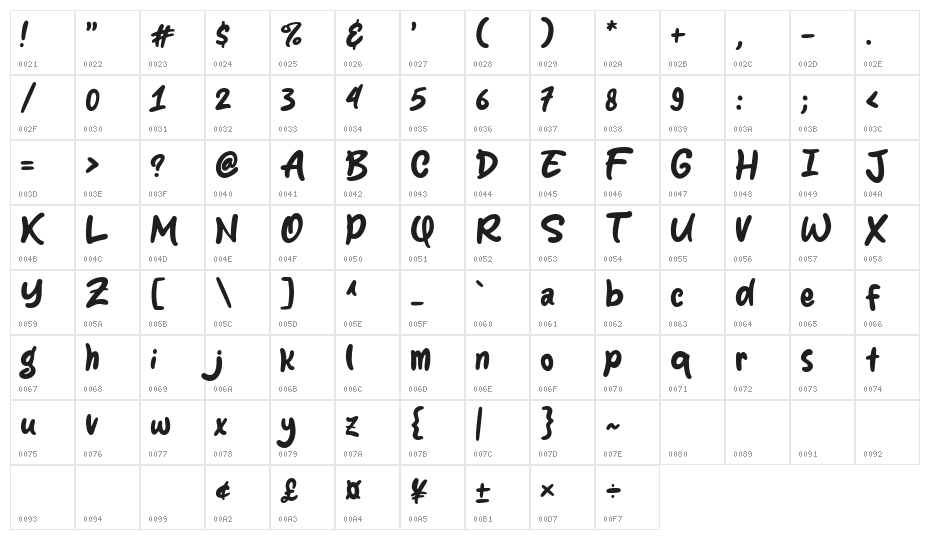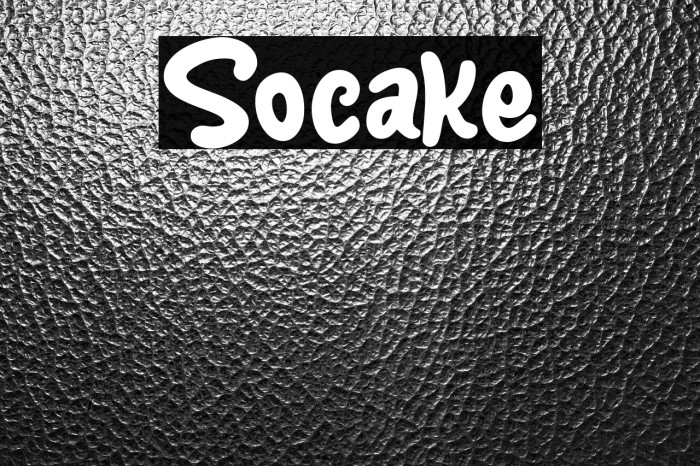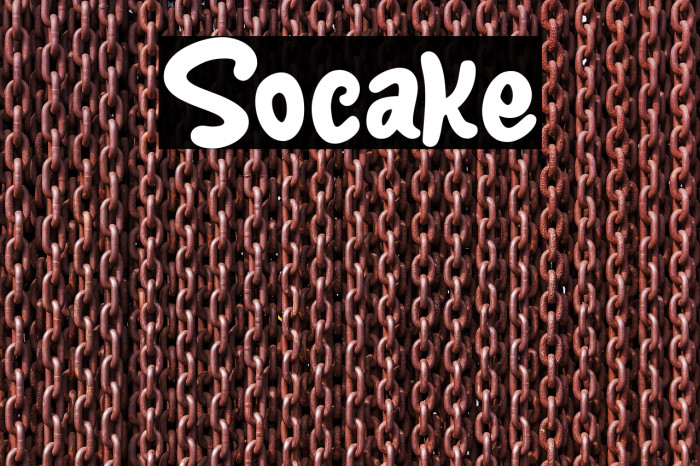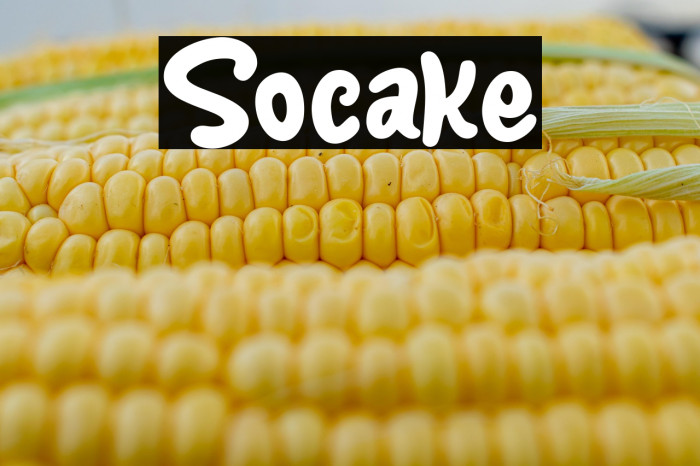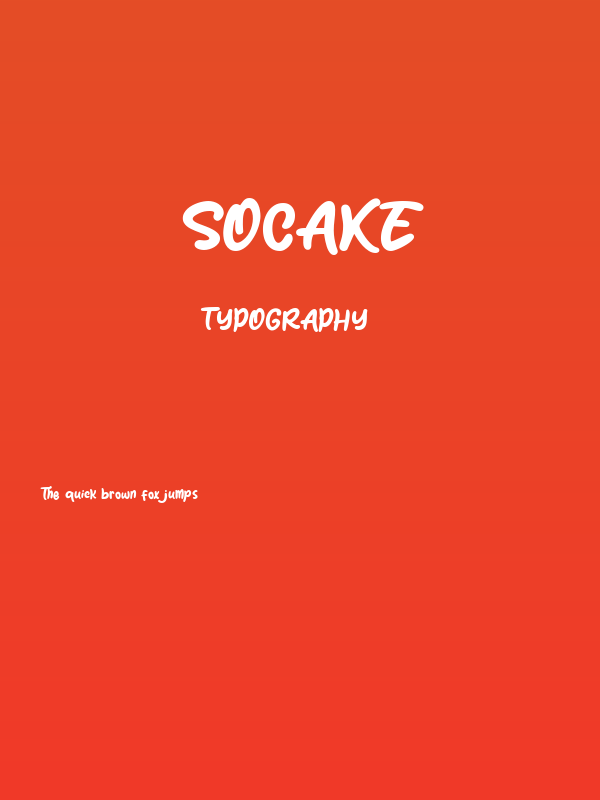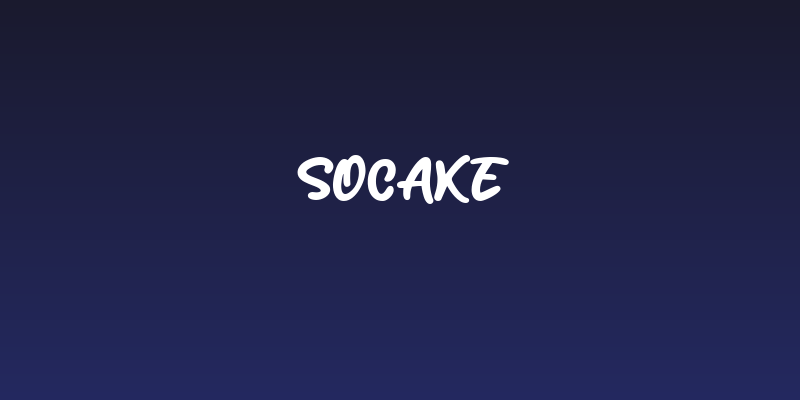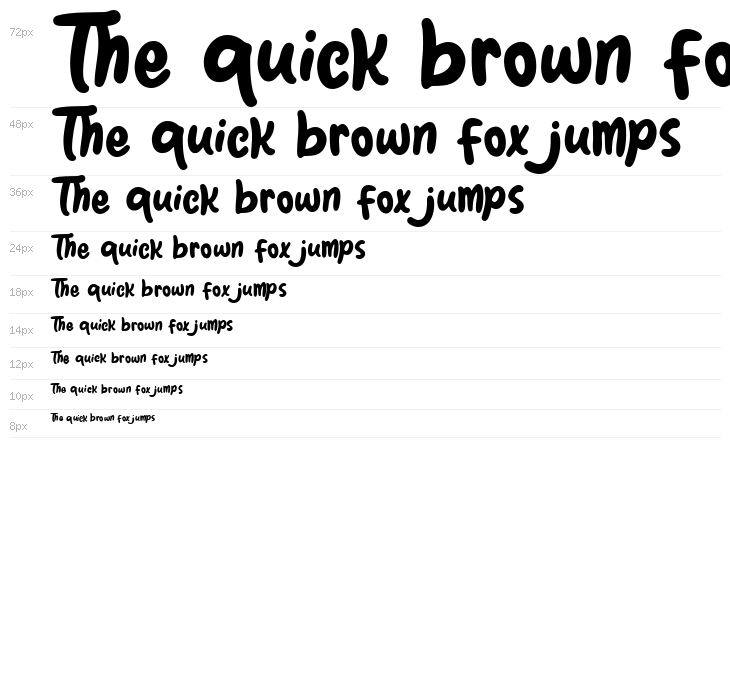
Socake Font
This playful and bold font features a handwritten style with a lively and energetic appearance. The characters are rounded and slightly irregular, giving them a casual and friendly feel. The uppercase and lowercase letters are well-balanced, with a consistent stroke width that maintains readability. The numbers and special characters are designed to match the overall style, ensuring a cohesive look across all text. This font's unique personality makes it stand out, while its legibility ensures it remains functional for various uses.
| Overall Style | Playful |
| Use Case | Logos, Headlines, Posters |
| Proposed Projects | Ideal for children's books, playful branding, greeting cards, and social media graphics. |